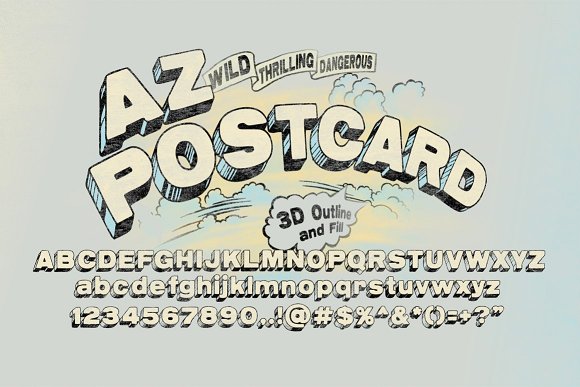
The Ultimate Guide to AZ Postcard 3D Font: Unlocking Creative Possibilities
Have you ever been in the middle of a design project, and suddenly, you’re stuck on finding the perfect font? I recall a recent experience where I was working on a fun superhero-themed craft project for a client, and I just couldn’t find a font that captured the playful, cartoony vibe I was going for. That was until I stumbled upon the AZ Postcard 3D Font. This delightful 3D font, with its hand-drawn feel, has been a game-changer for me, and I’m excited to share my experience with you.
- ✅ Unique, cartoony superhero feel that’s perfect for creative projects
- ✅ Comes with two fonts: AZ Postcard Regular and AZ Postcard 3D, offering versatility
- ✅ Great for adding a touch of whimsy and fun to your designs
- ⚠️ Limited character set compared to more comprehensive fonts
- ⚠️ May not be suitable for very formal or professional projects
- Experiment with the OpenType features and stylistic alternates to customize your text
- Explore the glyphs and OpenType features to add depth to your design
The Designer Inspiration Behind AZ Postcard 3D Font
The AZ Postcard 3D Font was likely created with the intention of capturing a fun, superhero-esque vibe. Imagine a designer who loves comic books and cartoons, wanting to create a font that could be used for superhero posters, DIY craft projects, or even children’s book titles. The result is a font that’s both playful and versatile.
| What type of projects is AZ Postcard 3D Font best suited for? | AZ Postcard 3D Font is ideal for creative, fun projects such as superhero-themed crafts, DIY posters, children’s book titles, and casual social media graphics. |
| Does AZ Postcard 3D Font support OpenType features? | Yes, AZ Postcard 3D Font likely supports OpenType features, including stylistic alternates and glyphs, which can enhance your design work. |